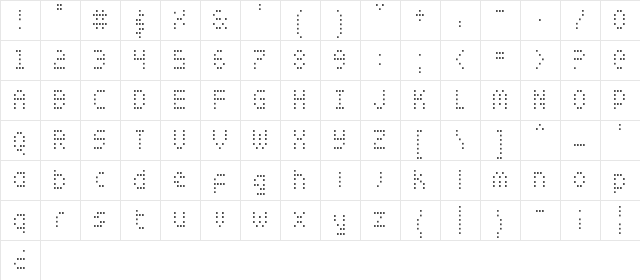
Zado Condensed Condensed
Design Context for Zado Condensed Typeface
Zado Condensed is a composed and adaptable typeface that performs quietly and consistently across a wide range of design contexts. The condensed width makes it efficient for tight spaces without sacrificing legibility.